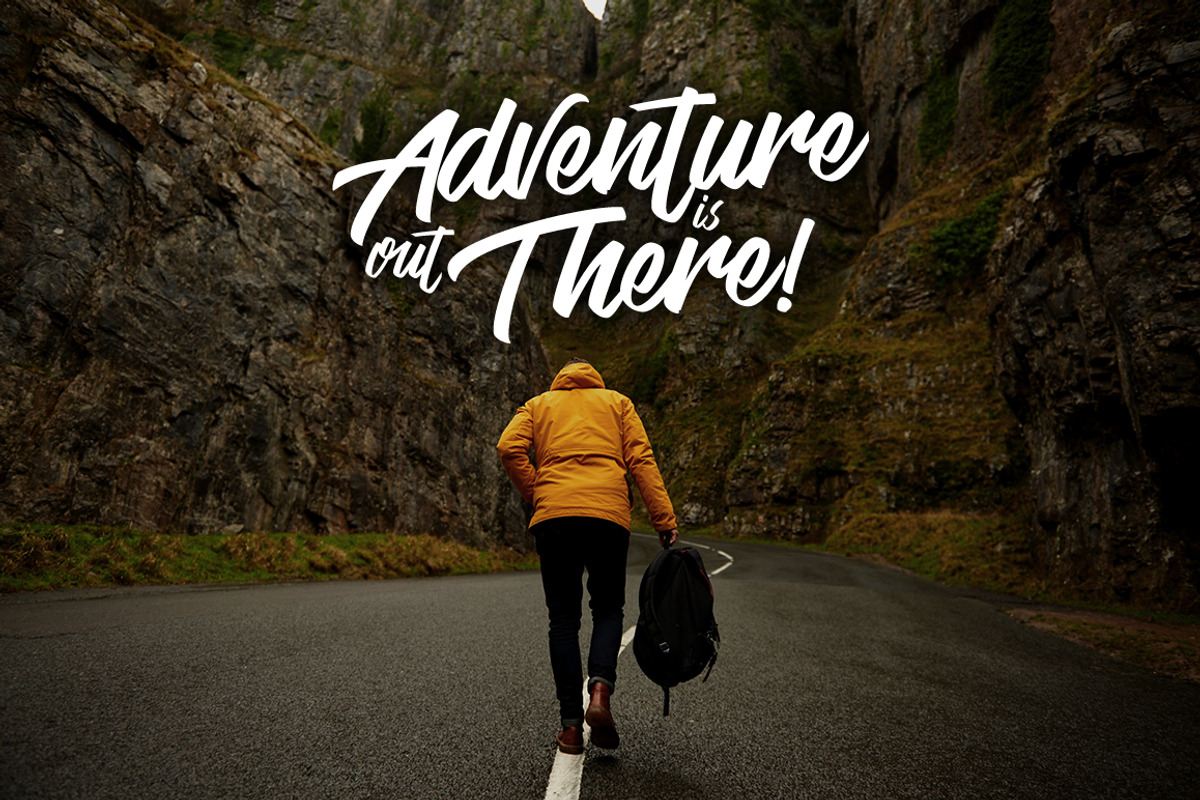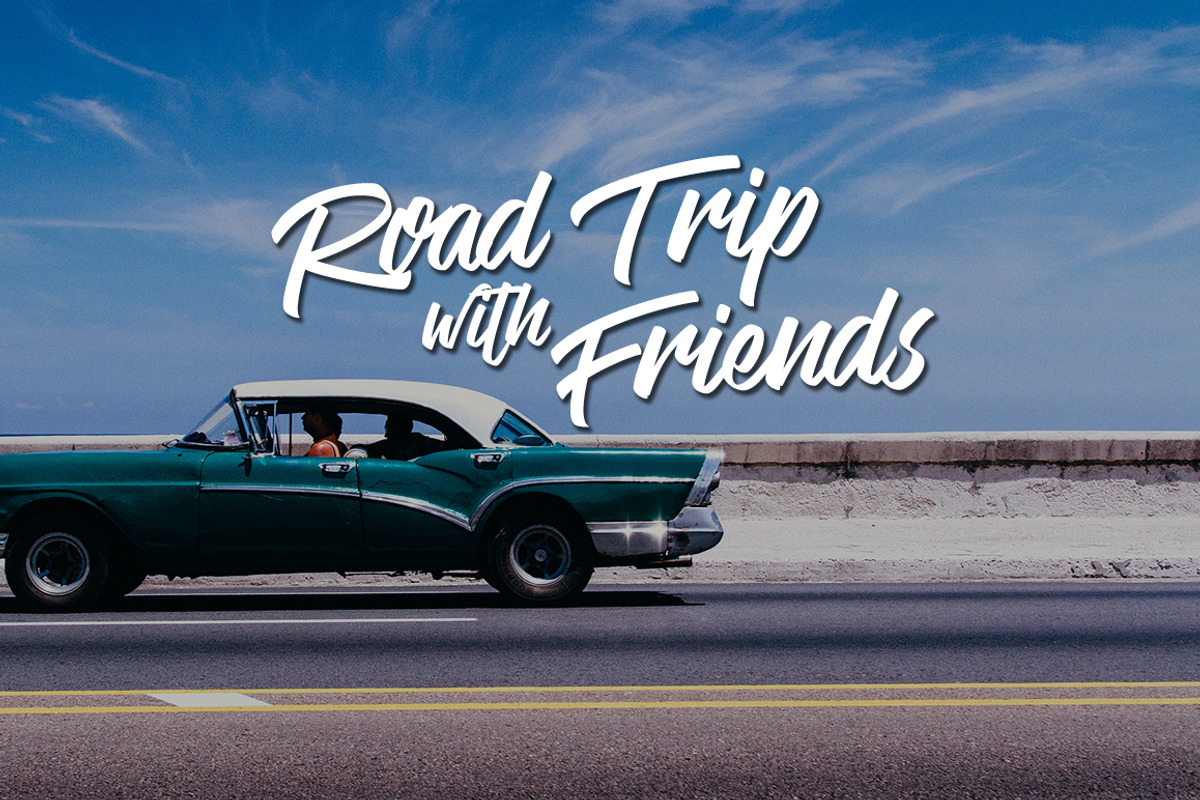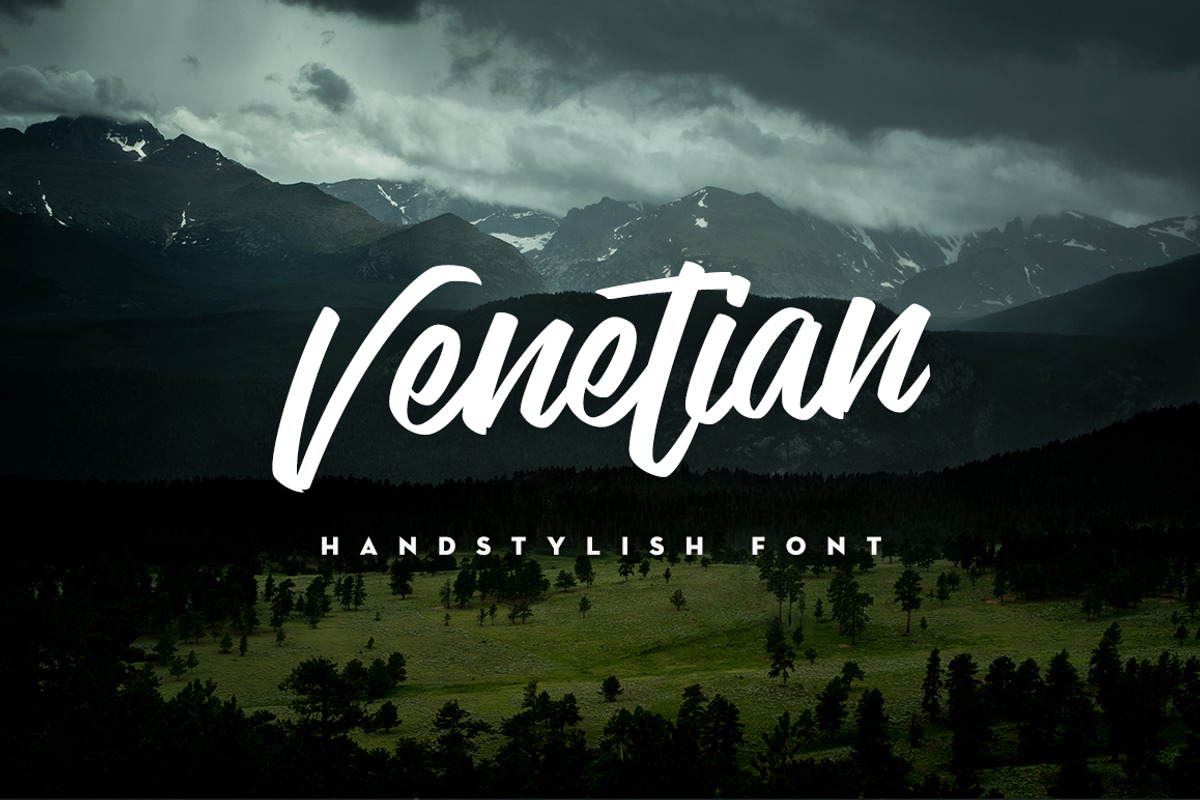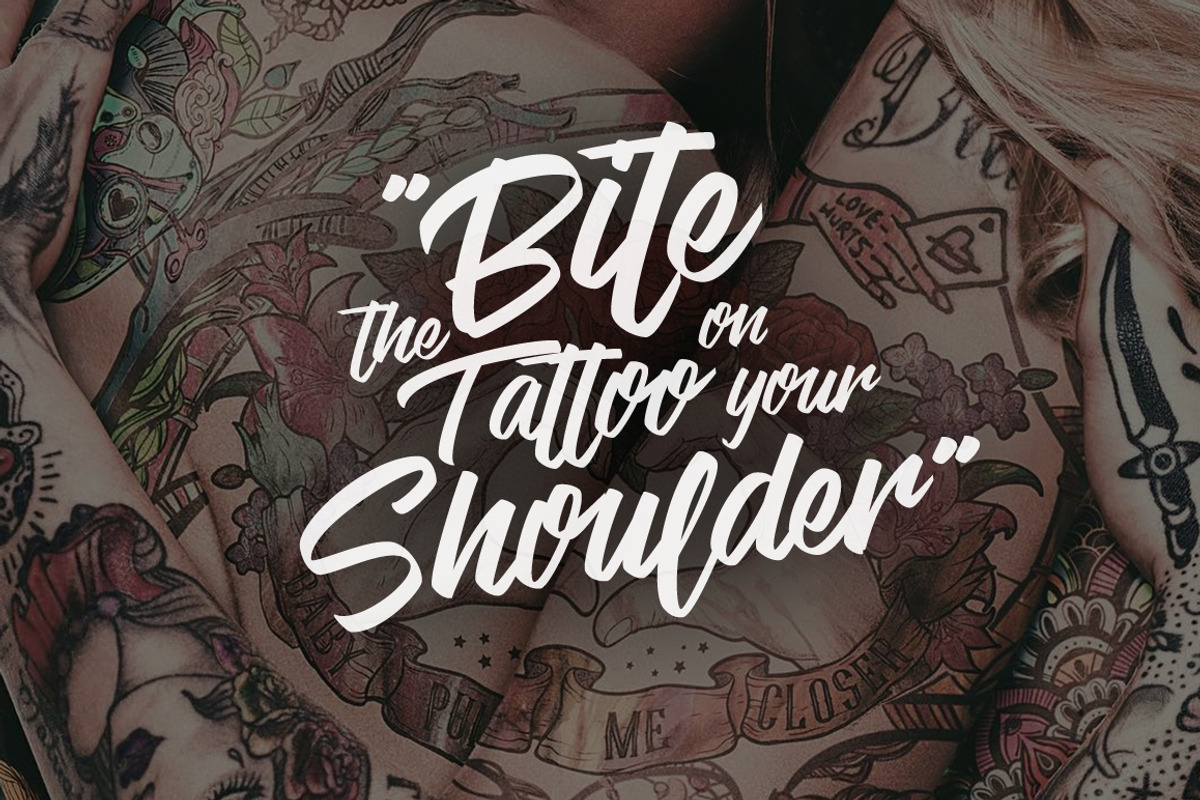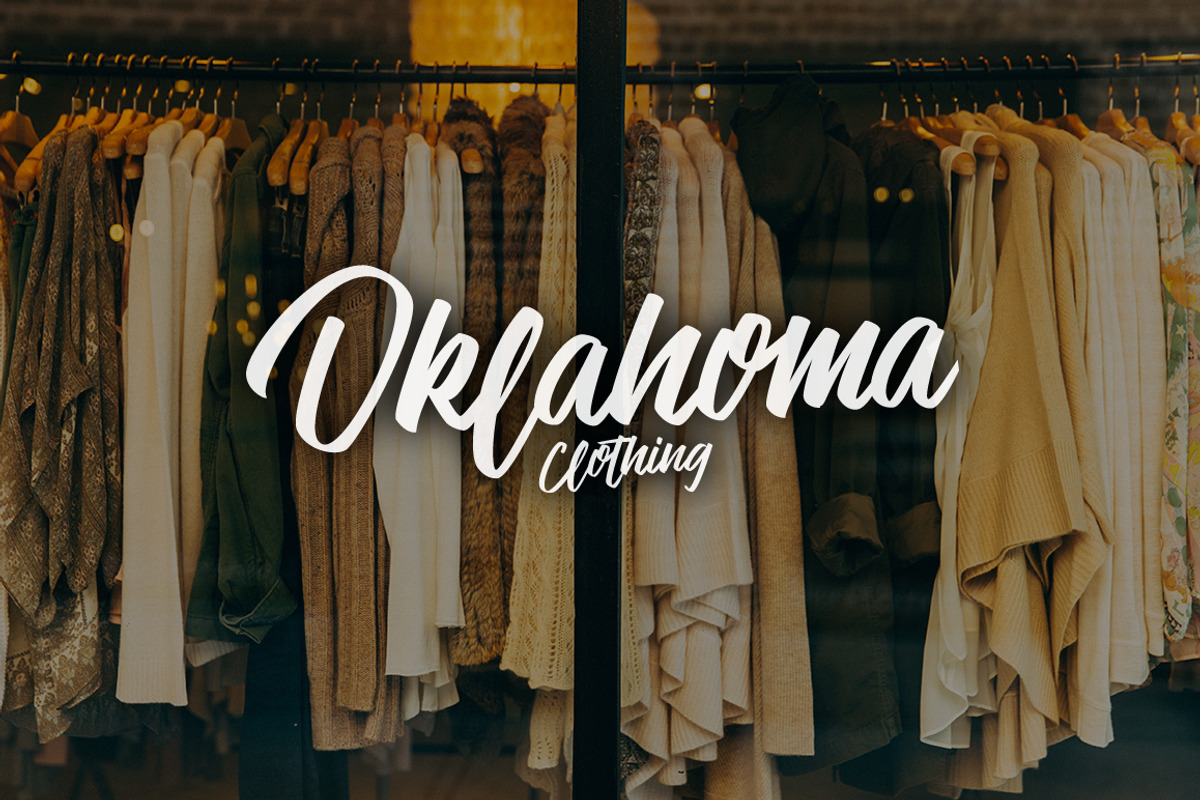
Venetian Handstylish Font
Say hello for Venetian Handstylish Font! Best match for logos, header, titles, prints & other creative process possibilities.
Create a extraordinary handstylish results by using Venetian Handstylish Font!